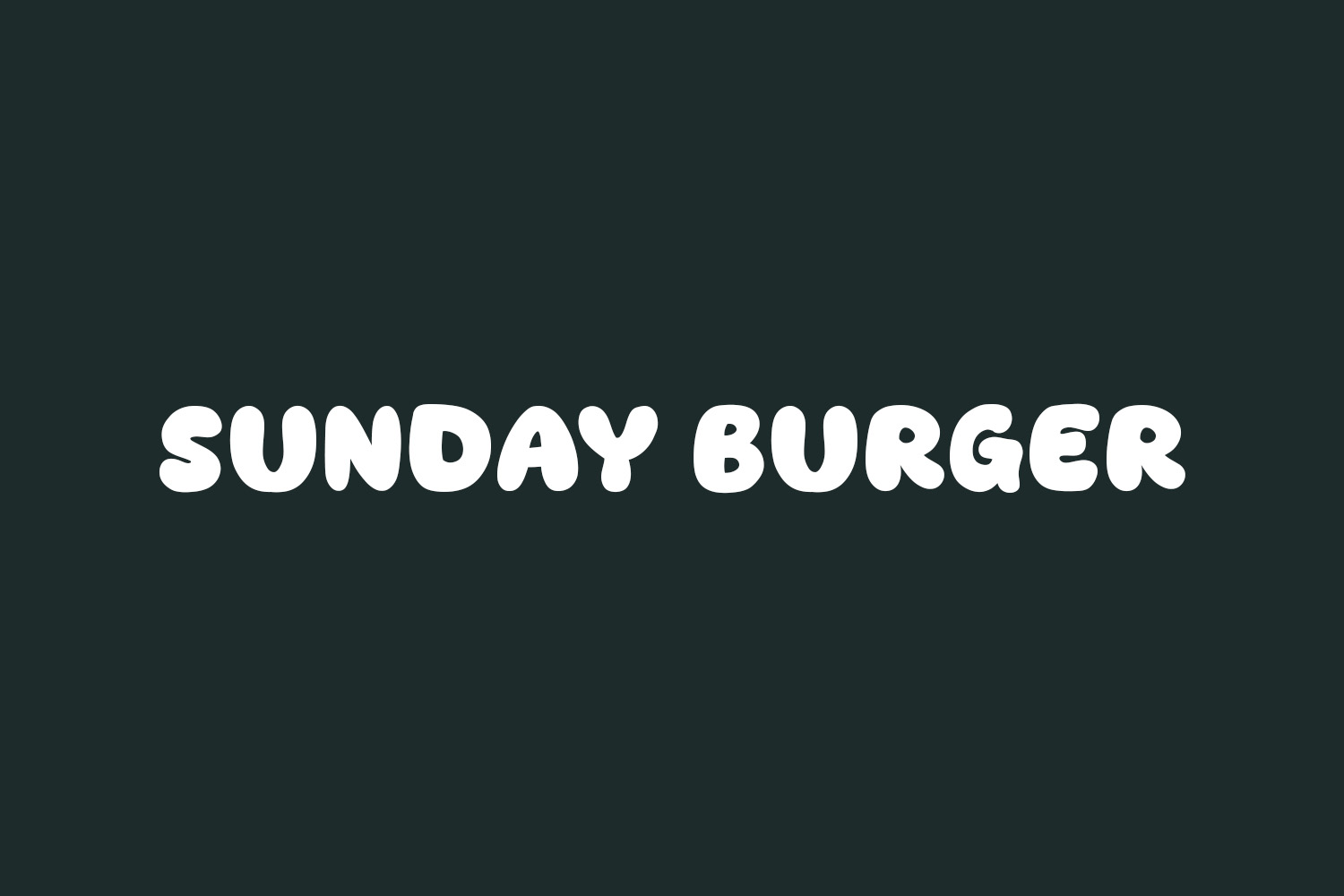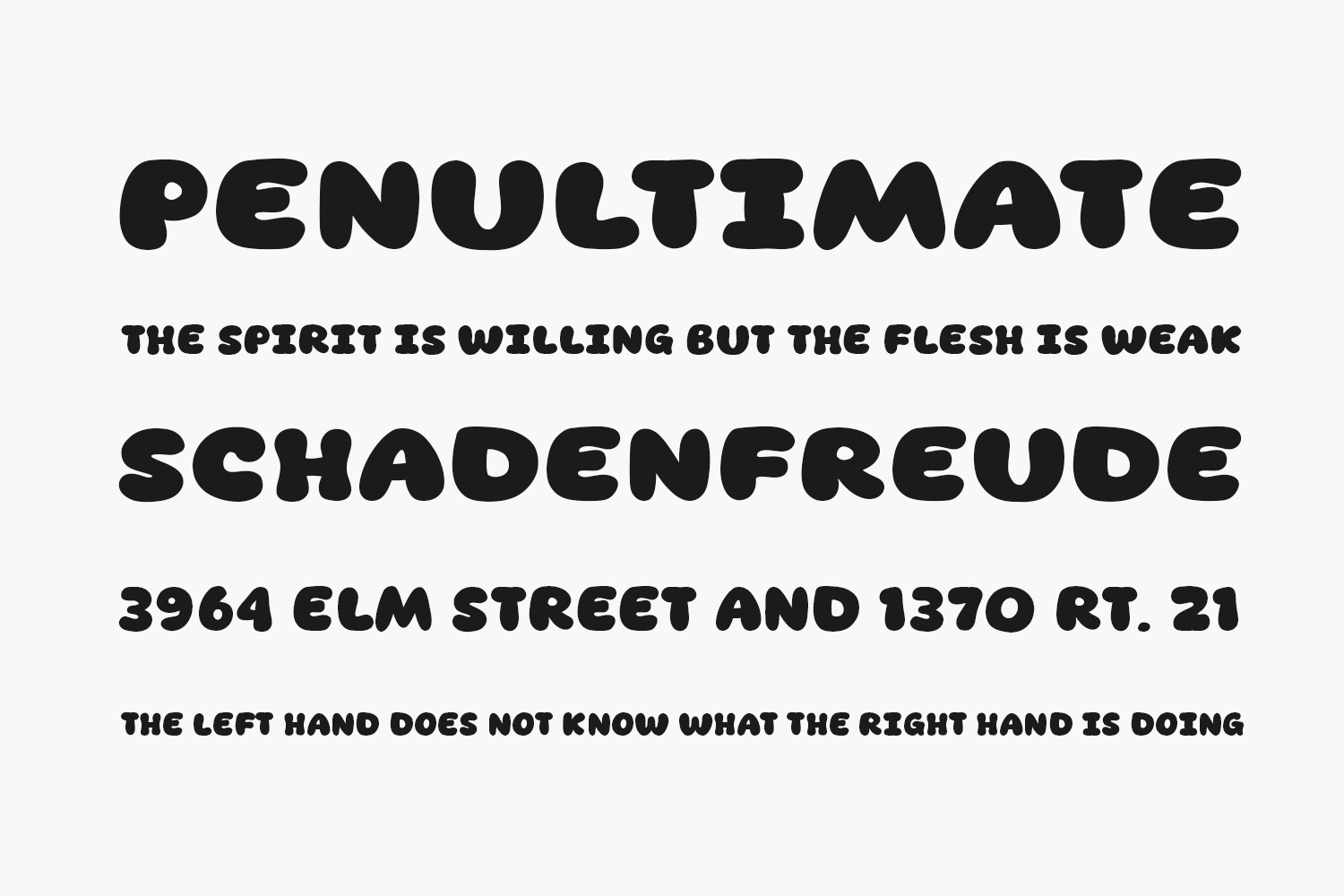
Sunday Burger Free Font is a contemporary and charming handwritten display font tailor-made for posters, logos, magazines, book covers, banners, and beyond! Elevate your designs with this extraordinary font. Its versatility shines across a diverse spectrum of projects. Infuse it into your creative concepts and witness the remarkable difference it makes, helping your ideas truly shine. Sunday Burger Free Font is free for personal use only. Please purchase the full version for commercial use.